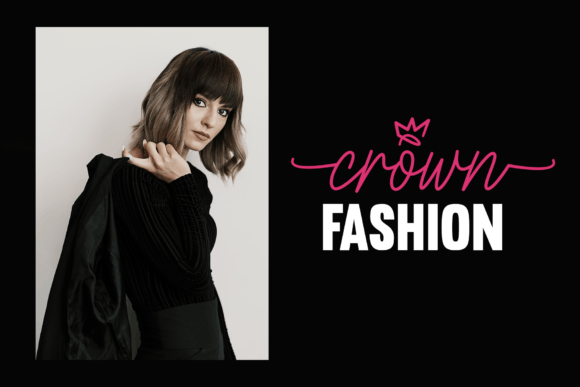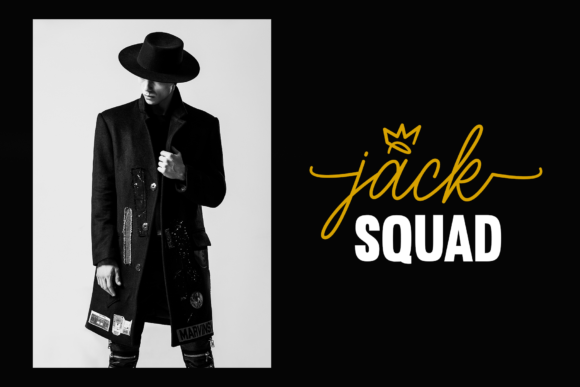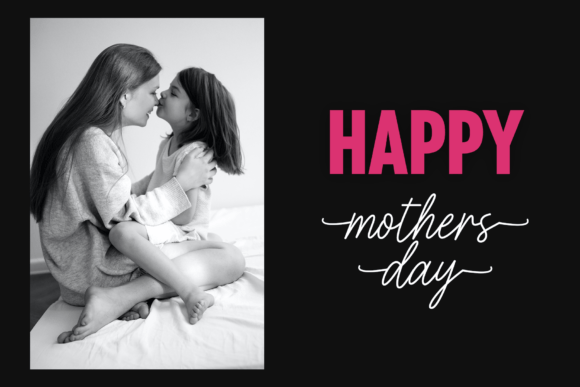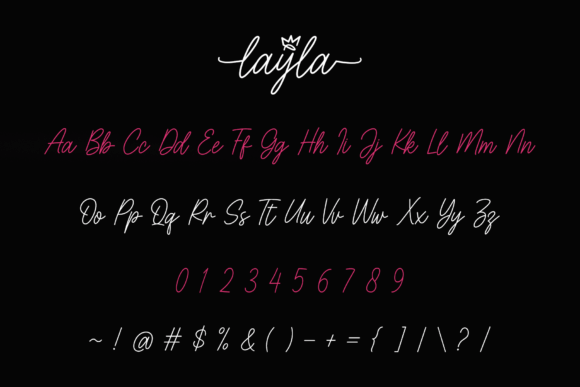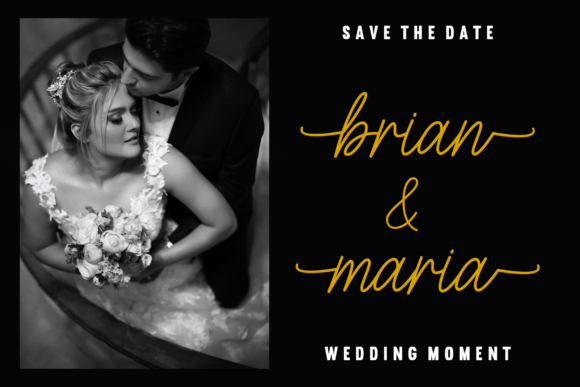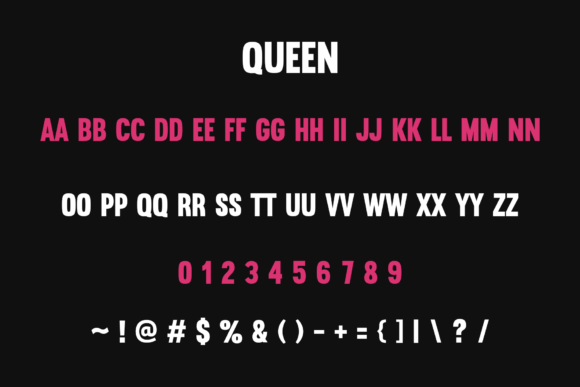
Introduction to Queen Layla Font
Queen Layla is a beautiful and elegant crown font duo with two great integrated sans and script font shapes.
this is the answer for any job that requires a touch of femininity and elegance Be creative without limits by using two shapes at once.
Key Features of Queen Layla Font
Why Choose Queen Layla Font?